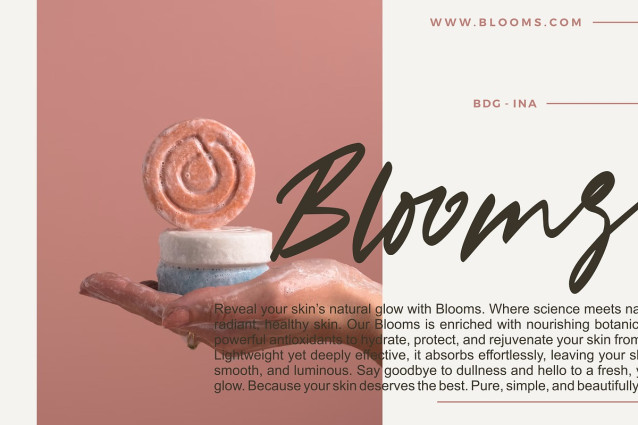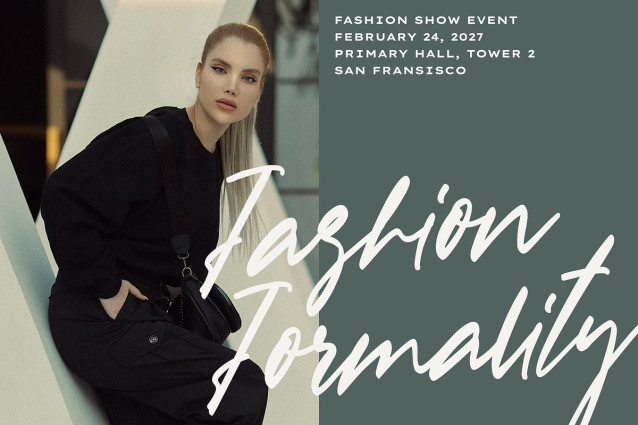
Belle Papillon Font
Belle Papillon Font is a refined handwritten typeface crafted from natural hand strokes. With its effortless flow and organic charm, this font brings warmth and authenticity to any design.
Perfect for logos, food & beverage branding, cosmetics, promotional campaigns, video titles, product packaging, quotes, posters, flyers, and stylish text overlays, Belle Papillon is a versatile choice for projects that seek a personal, handcrafted touch.